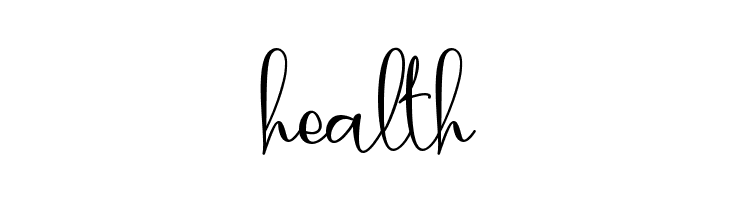
A bold, vintage-style font with a decorative, distressed texture.
A geometric, architectural font with a modern, technical style.
A bold, distressed font with a gritty, urban aesthetic.
An elegant script font with flowing, interconnected letters and ornate details.
A whimsical and playful font with curly, decorative elements.
A bold, decorative font with a camouflage pattern, perfect for military-themed designs.
A bold, distressed stencil-style font with a rugged, military-inspired look.
A bold, distressed stencil font with a military-inspired design.
A playful, whimsical handwritten font with irregular strokes and a casual vibe.
A playful, casual handwritten font with dynamic strokes and a friendly appearance.
A playful, casual handwritten font with smooth, flowing lines and a friendly vibe.
Bold, outlined font with a collegiate, varsity style.
A bold, geometric font with a military-inspired, stencil-like design.
A bold, futuristic font with a military-inspired, condensed style.
A bold, angular font with a futuristic, military-inspired design.
Ornate serif capitals with intricate borders, exuding a vintage elegance.
A hand-drawn, sketch-style font with textured, artistic characters.
A clean, modern sans-serif font with semi-light weight and slightly condensed characters.
A bold, textured font with a hand-drawn, vintage feel.
A clean, minimalist handwritten font with a light and airy appearance.
A sleek, semi-light oblique font with a modern and dynamic style.